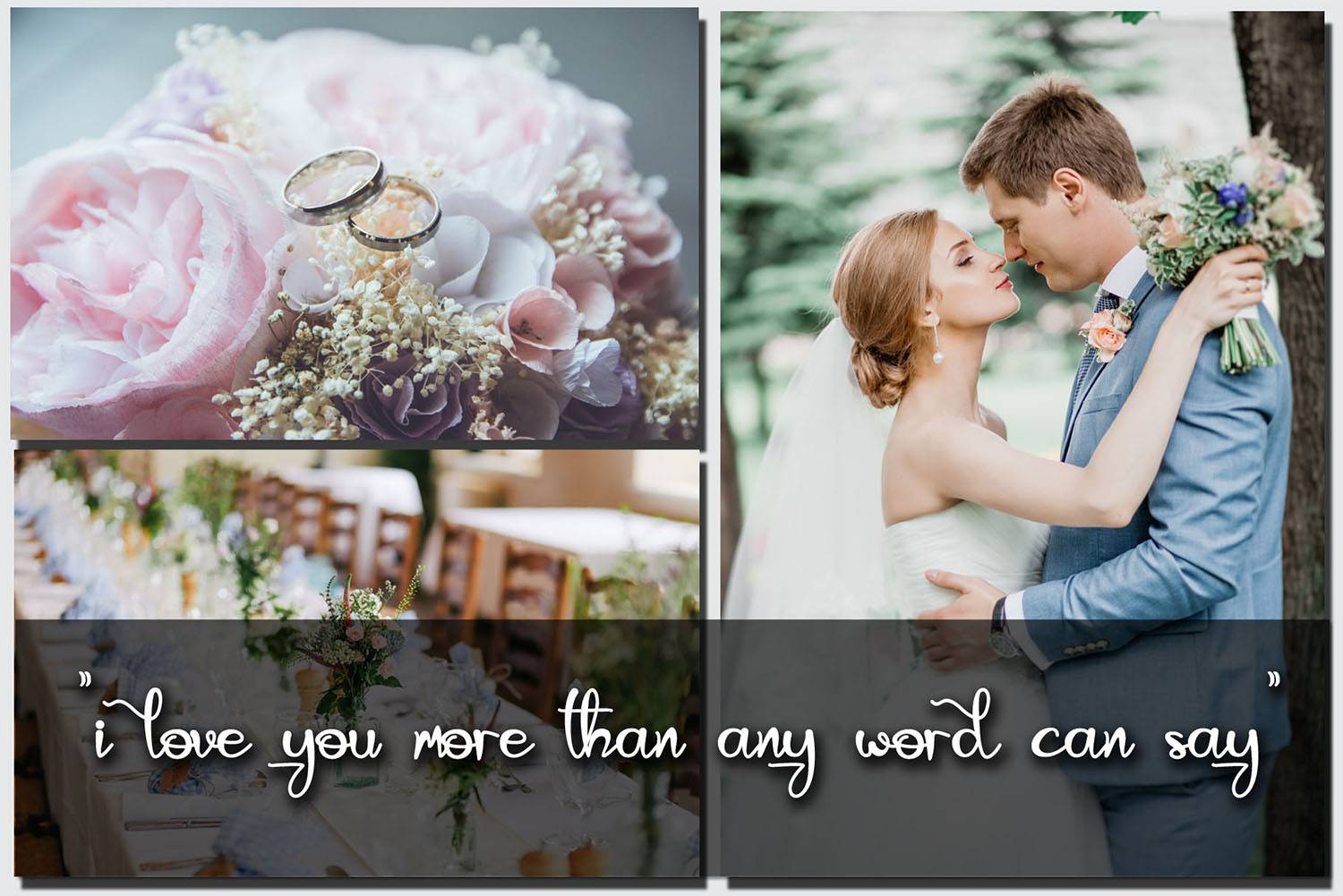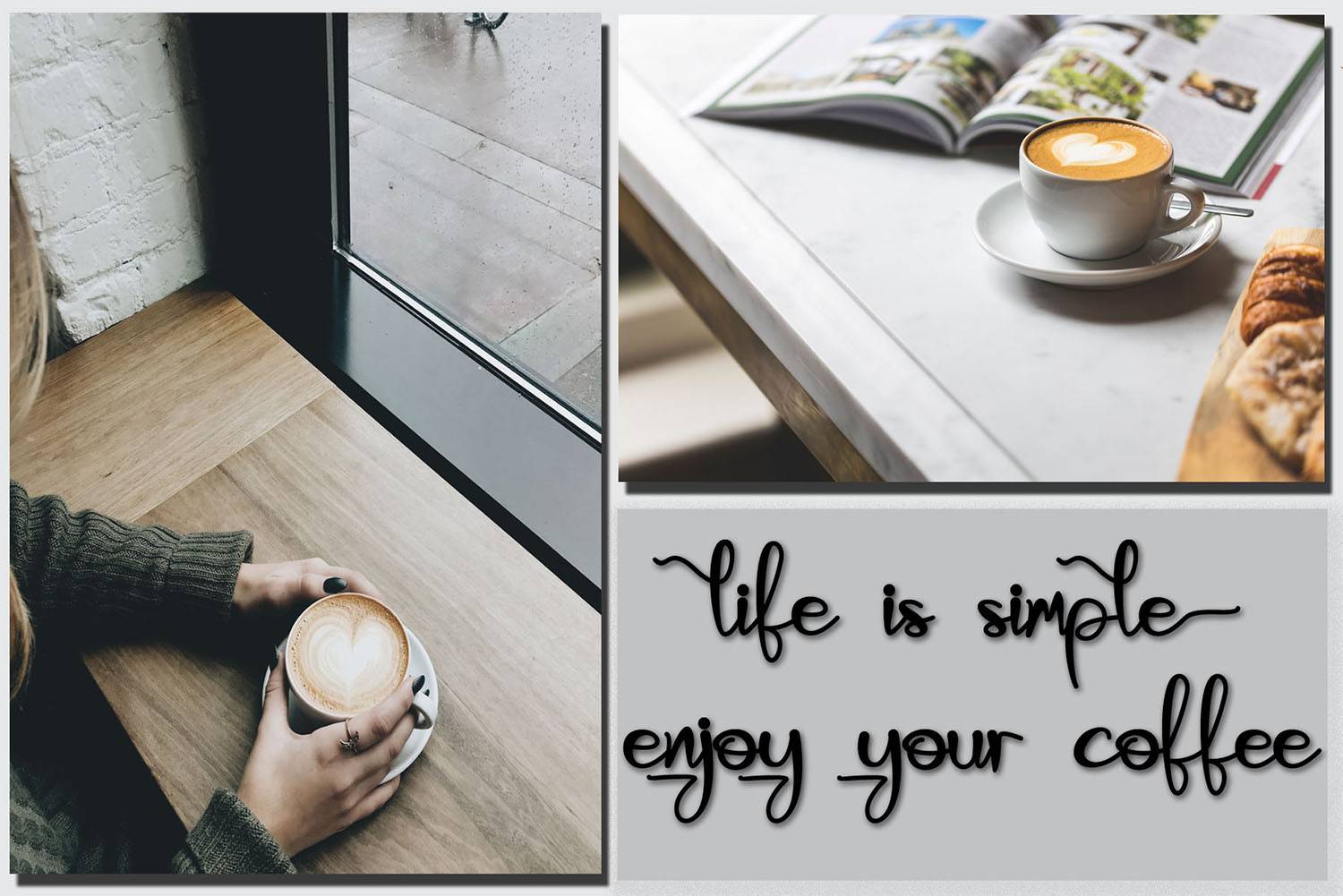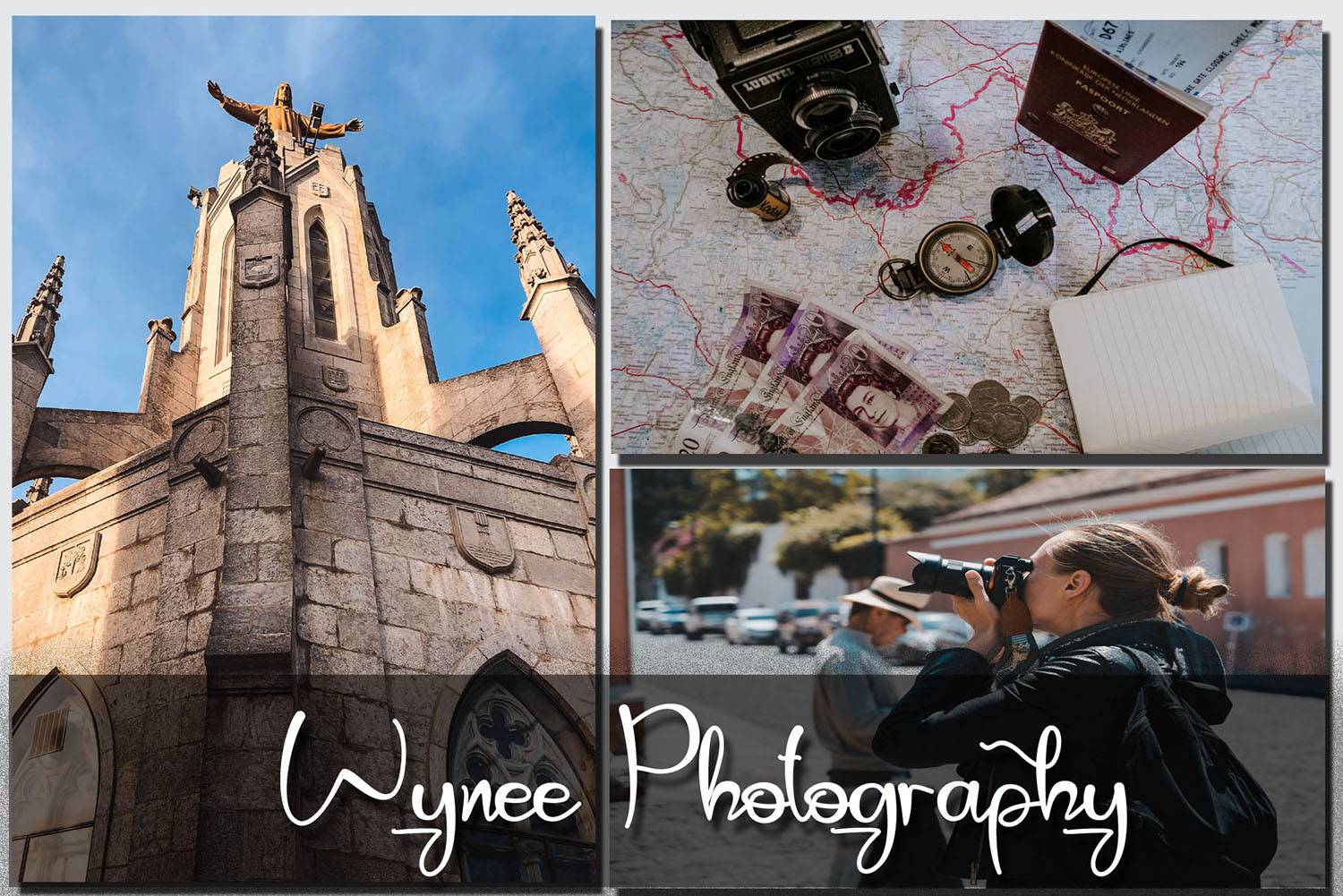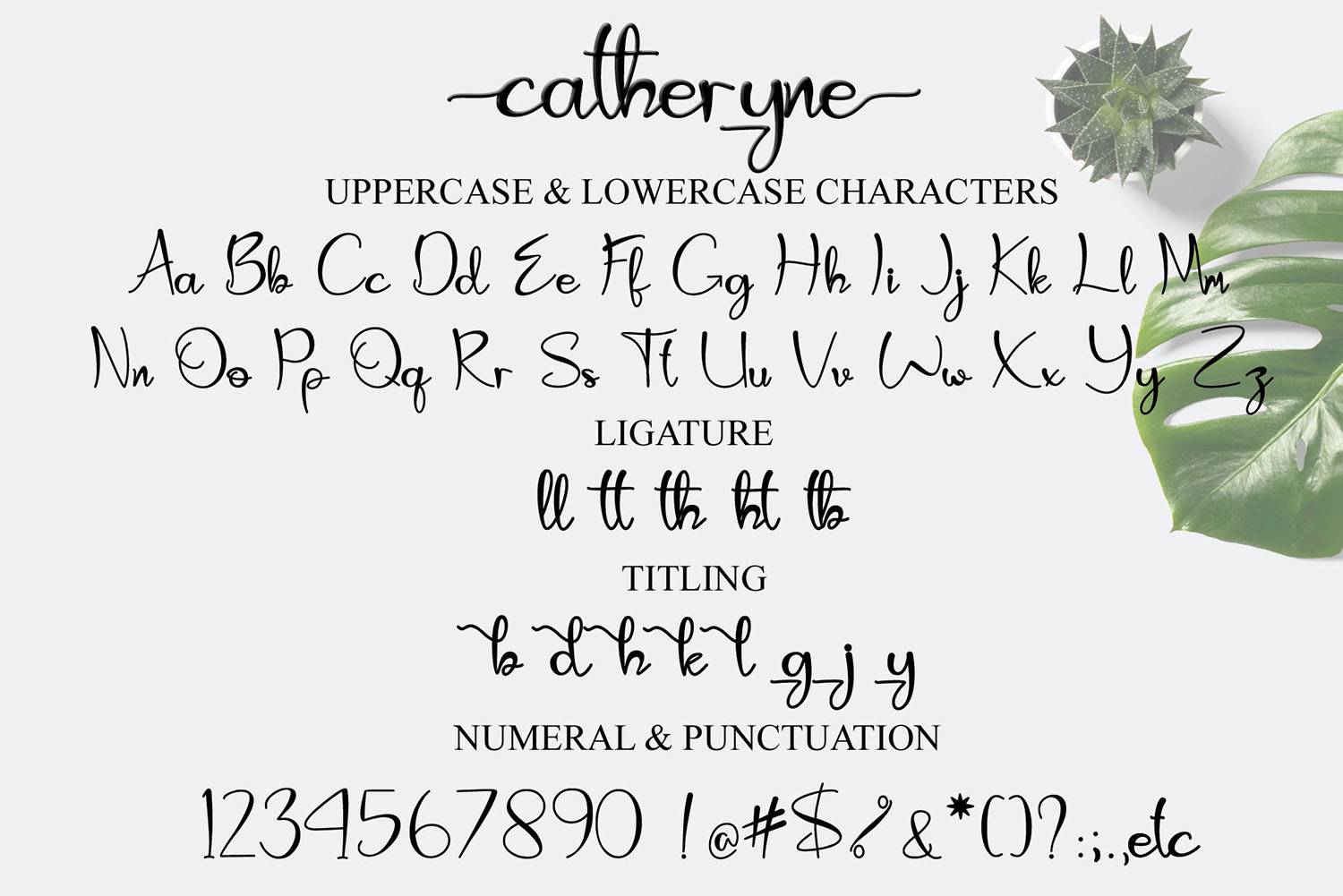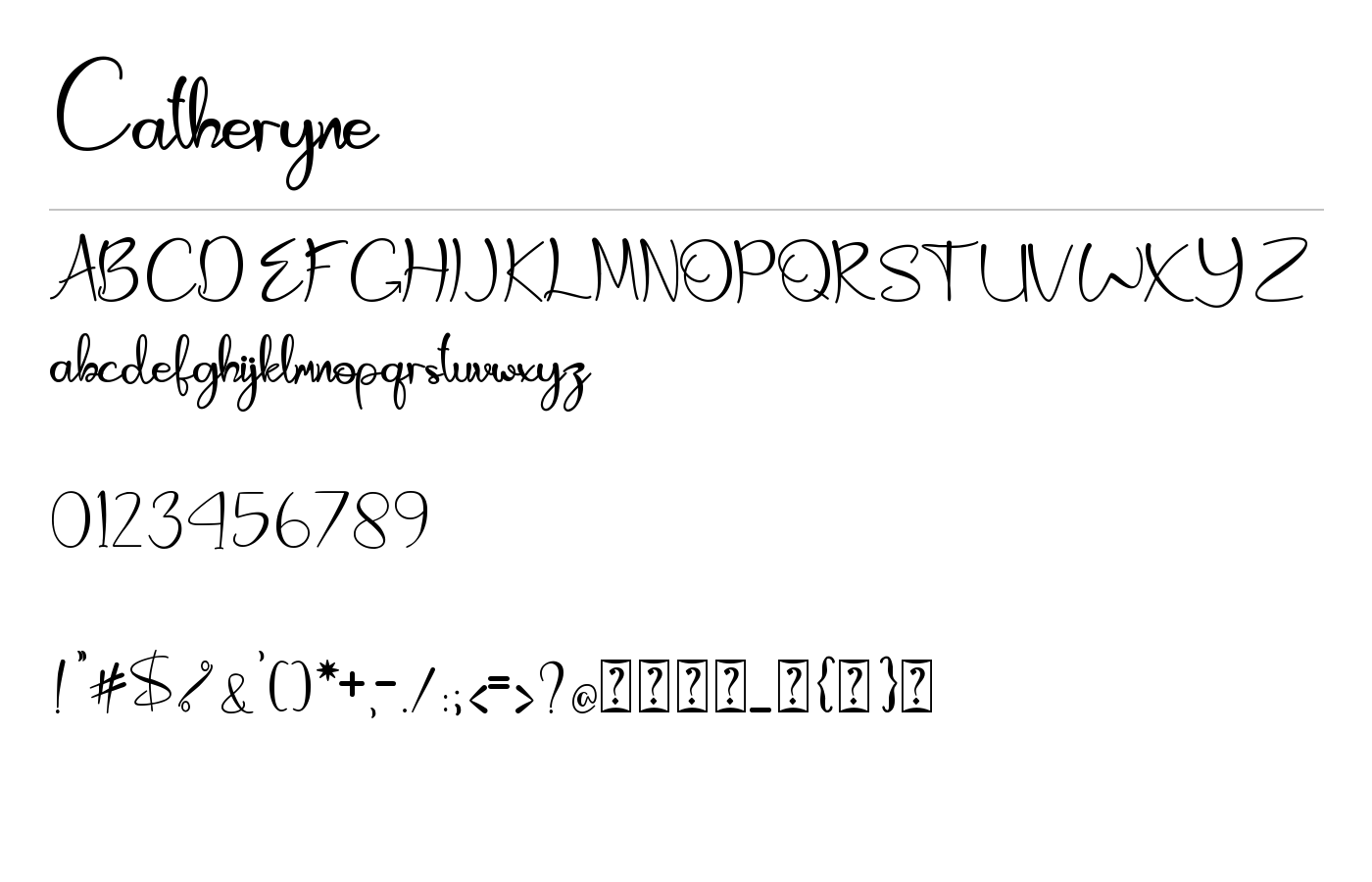
Catheryne is a whimsical, handwritten-style font featuring slender, playful strokes and a casual yet elegant feel. Its tall, narrow letterforms with unique loops and curls create a friendly and approachable personality, making it ideal for creative projects, invitations, and branding that seeks a personal, artistic touch. This font works beautifully for headlines and decorative text where a light, charming aesthetic is desired.
Catheryne Font